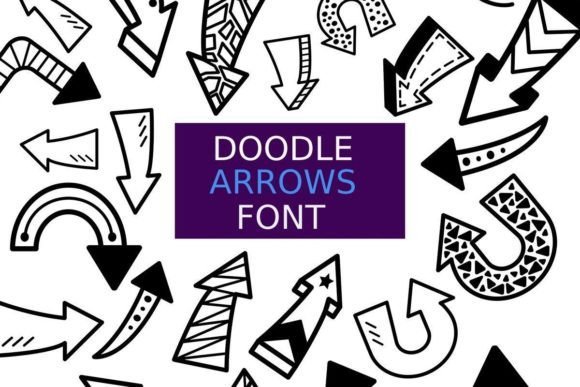
Introduction to Doodle Arrows Font
Doodle Arrows is a fun and useful dingbat font.
Its versatility makes it great for a wide pool of craft projects, designs, planners, diaries, activity books, or anything that your heart desires .
Key Features of Doodle Arrows Font
Why Choose Doodle Arrows Font?
Doodle Arrows Font offers exceptional quality and versatility, making it a valuable addition to your design toolkit. Whether you’re creating for personal projects or commercial use, Doodle Arrows Font delivers professional results.